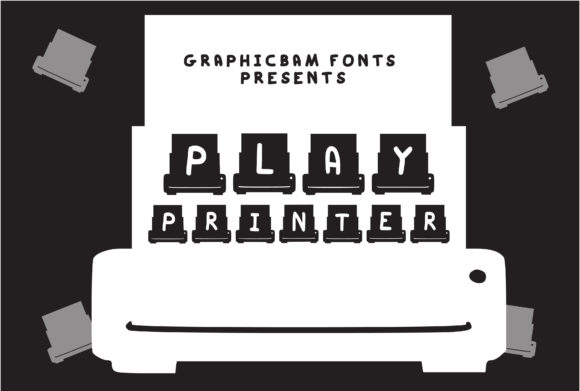
Unleash your creativity with Play Printer – the most captivating decorative font that will take your designs to new heights. This meticulously crafted masterpiece by GraphicsBam Fonts is not just a collection of letters and symbols; it's an artistic journey that will transform your digital creations into stunning visual experiences.
Play Printer is not merely a font; it's a gateway to a world of boundless imagination. With its incredibly cool and interestingly designed characters, this decorative font will infuse your web pages, presentations, greeting cards, and digital designs with an unmatched charm and sophistication. Its unique style is guaranteed to leave a lasting impression on your audience, making your designs stand out from the crowd.
Immerse yourself in the world of Play Printer and discover a font that's as versatile as it is visually stunning. Whether you're a seasoned designer or just starting your creative journey, Play Printer is your perfect companion. Its user-friendly design makes it accessible to everyone, allowing you to unleash your creativity effortlessly.
Step into the realm of endless possibilities with Play Printer. Let your imagination run wild as you craft captivating web page titles that demand attention, design presentations that leave a lasting impact, and create greeting cards that convey your heartfelt messages with an artistic flair. The possibilities are limitless!
Don't settle for ordinary fonts when you can have Play Printer – the font that ignites creativity and sets your designs apart. Join the league of design enthusiasts who have embraced the beauty of Play Printer and transformed their digital creations into masterpieces.